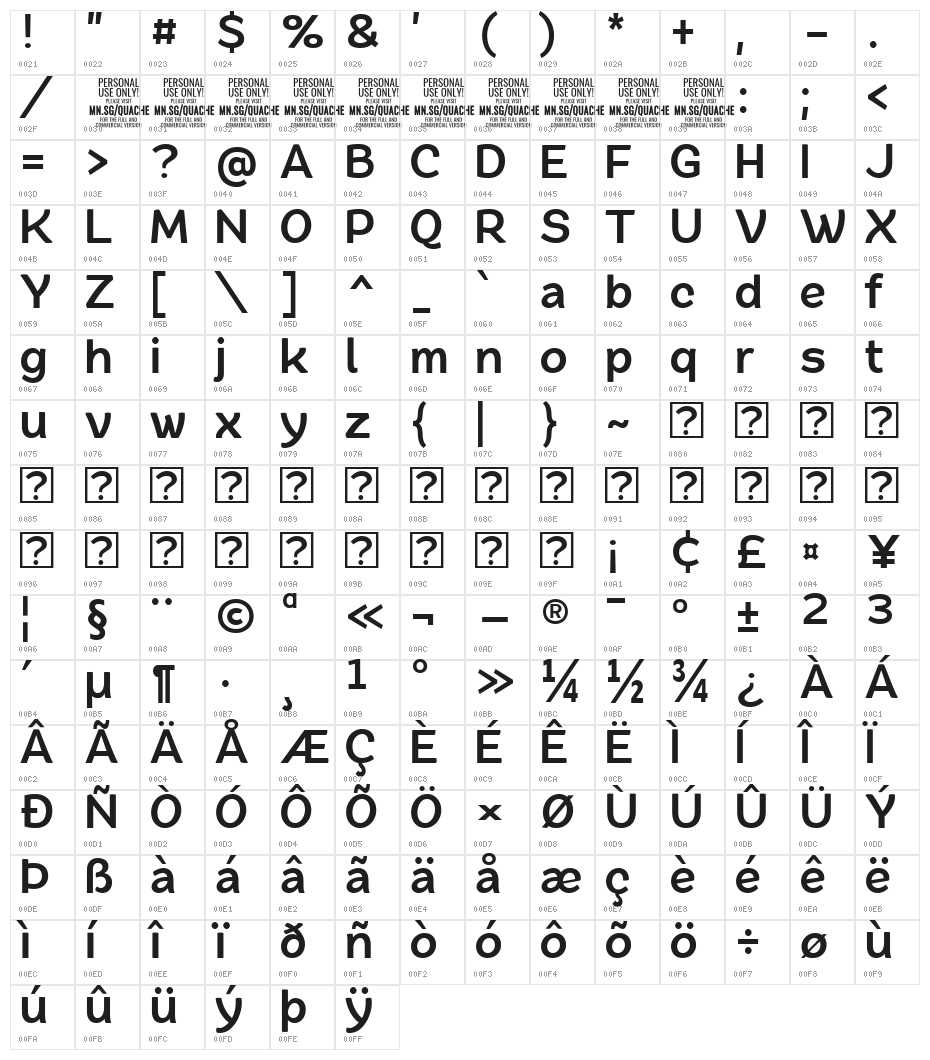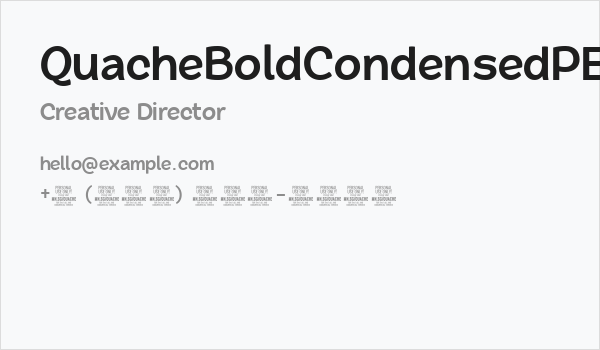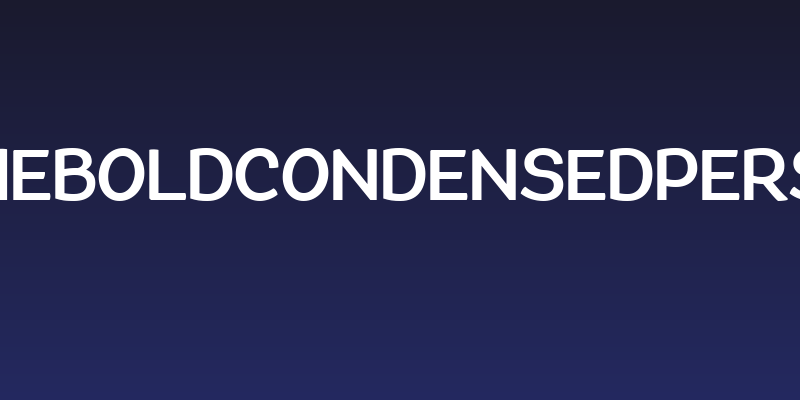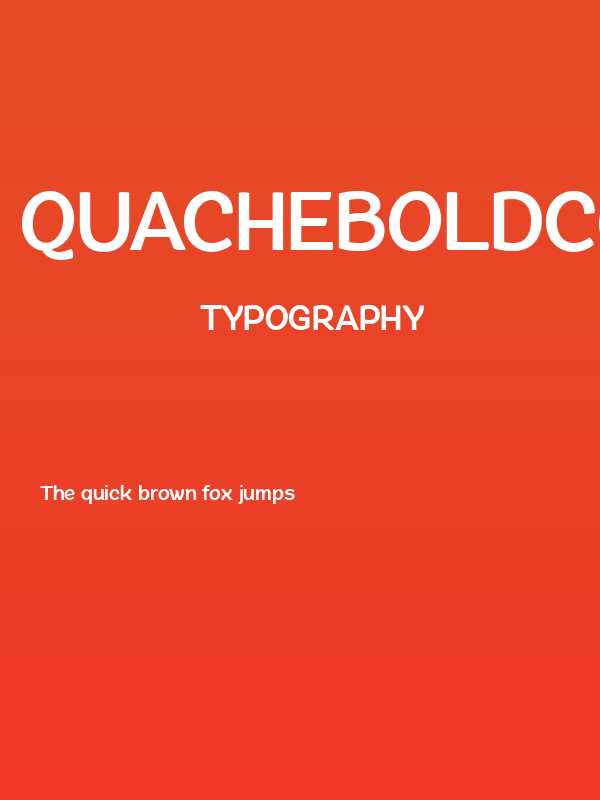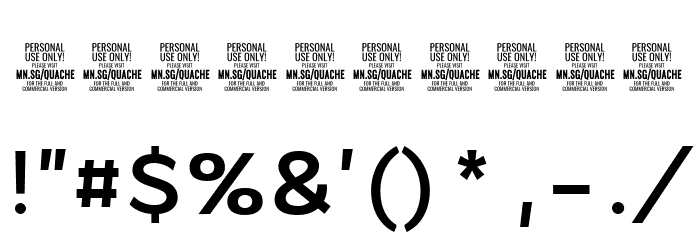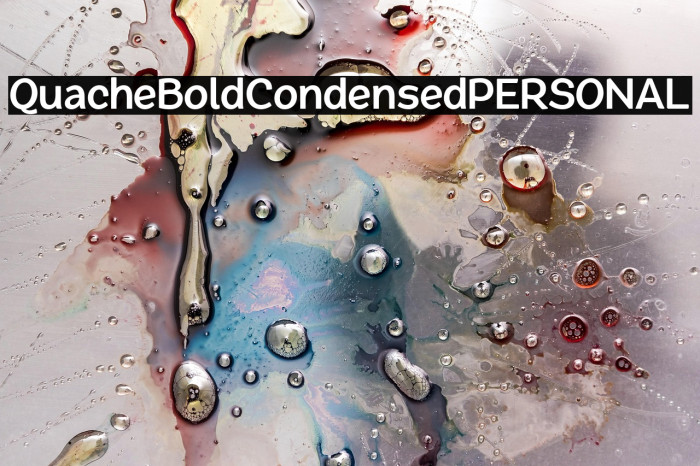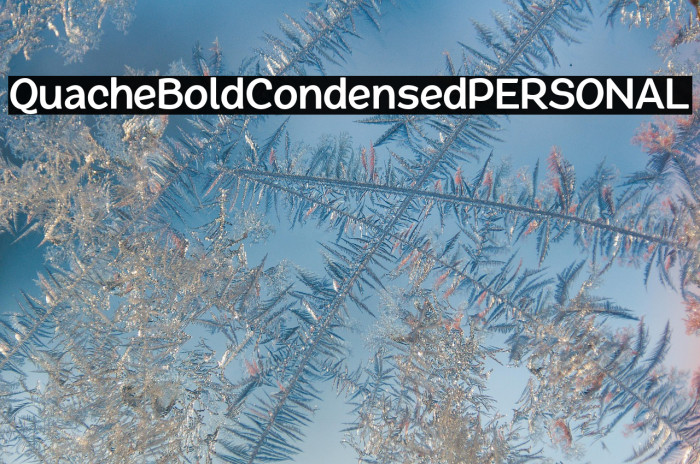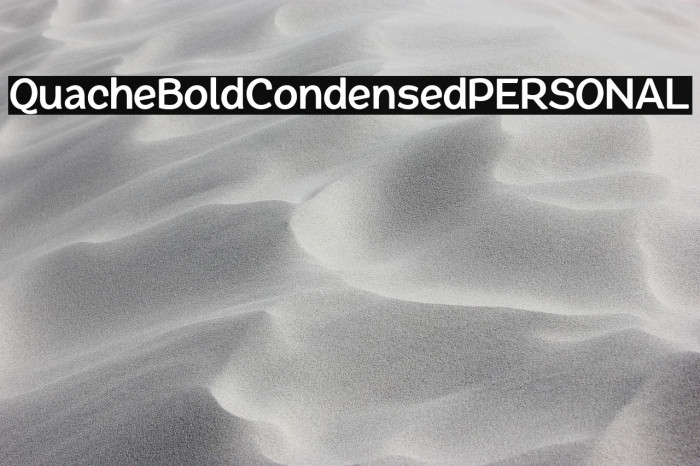
QuacheBoldCondensedPERSONAL Font
QuacheBoldCondensedPERSONAL Description
This font presents a bold and condensed style, characterized by its strong and impactful appearance. The uppercase and lowercase letters are uniformly bold, with a consistent stroke width that enhances readability. The condensed nature of the font allows for efficient use of space, making it ideal for headlines and titles. The design is modern and clean, with a sans-serif structure that emphasizes simplicity and clarity. Special characters are well-integrated, maintaining the bold and condensed aesthetic throughout.
| Proposed Projects | Ideal for headlines, posters, branding materials, and any project requiring a strong visual impact. |